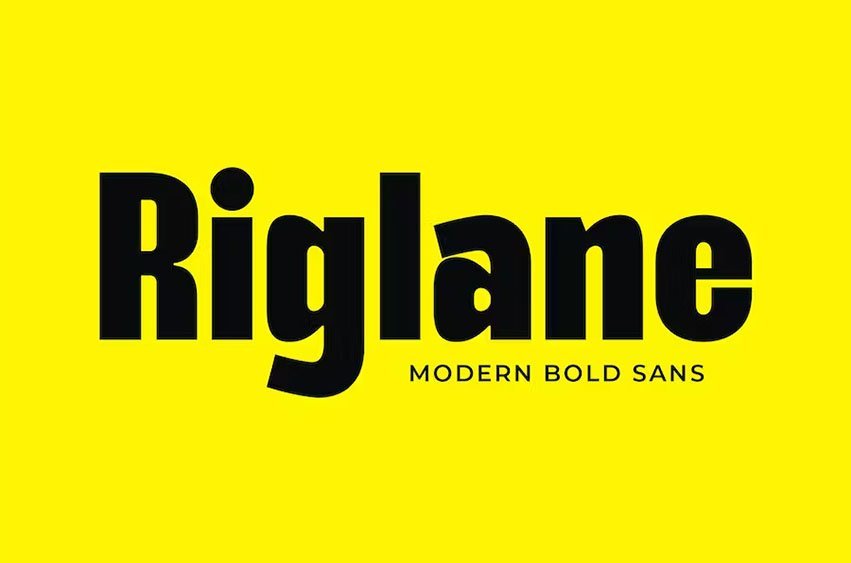
Riglane Font Introducing our new Riglane, modern sans serif font with an elegant style this is perfect for branding, logos, invitation, magazines, product packaging and more.